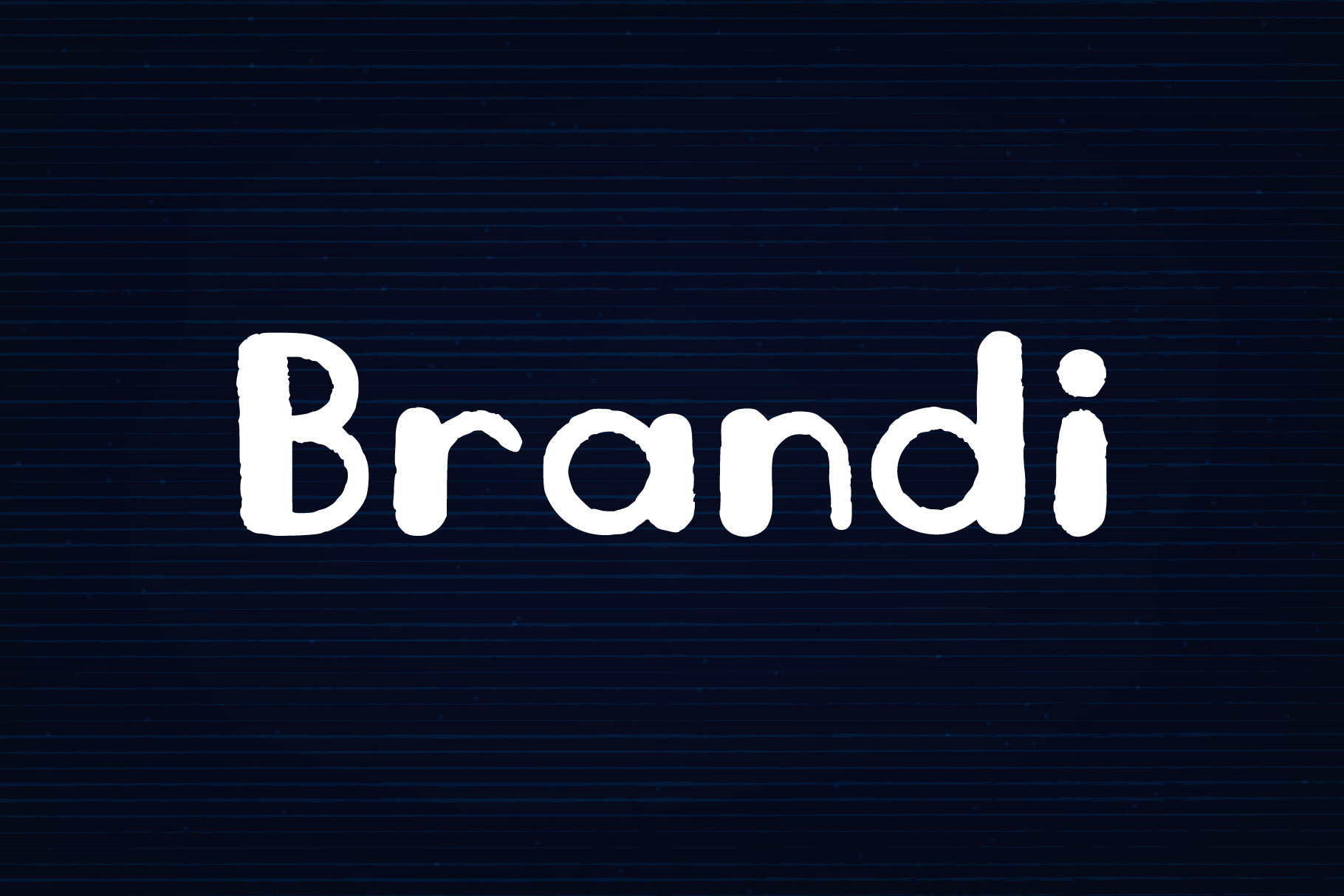
Brandi font
This is modern stylish font Brandi for those who like to do modern graphics. logos, prints, posters, cards, or are looking for some trendy font for their project.
The font contains uppercase, lowercase, numerals, punctuations.